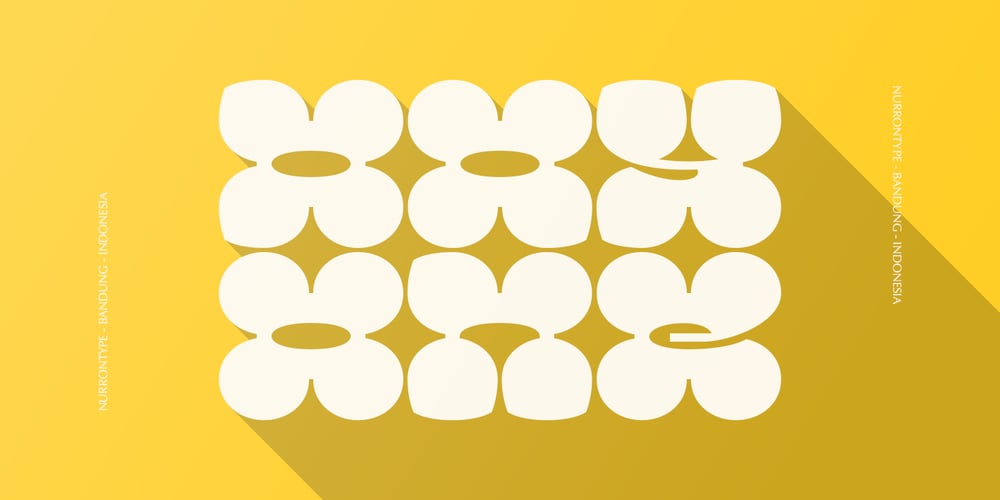
Dayone Font Family was designed by Nurron Shodiqin and published by Nurrontype. Dayone contains 1 styles and family package options. Oneday is a one of a kind retro font. Unique letterforms, thick, rhyme, best for logo, poster, headline, magazine and display.